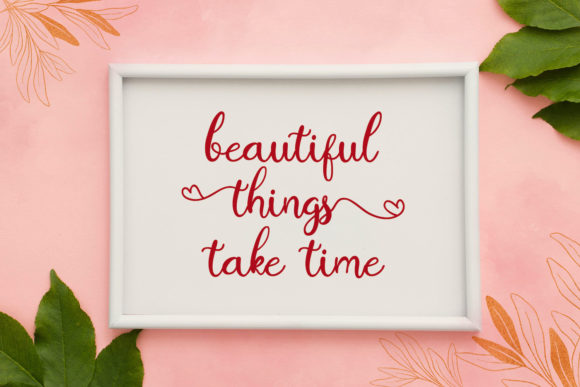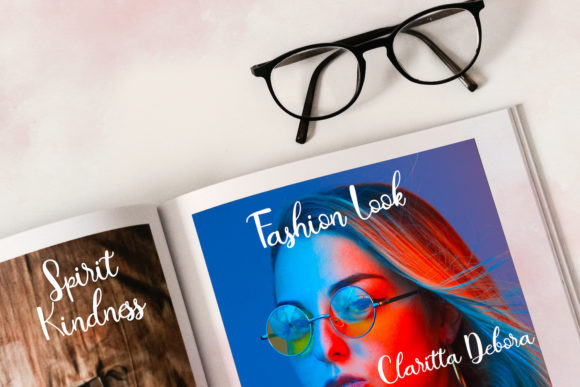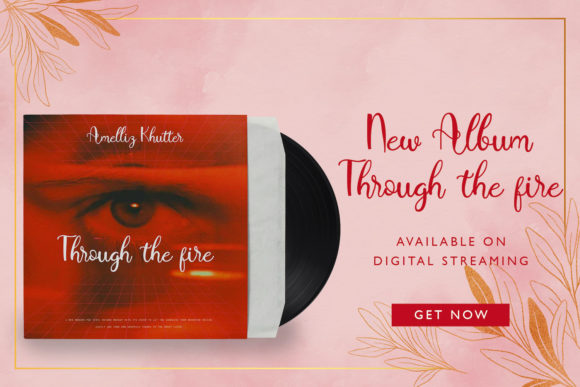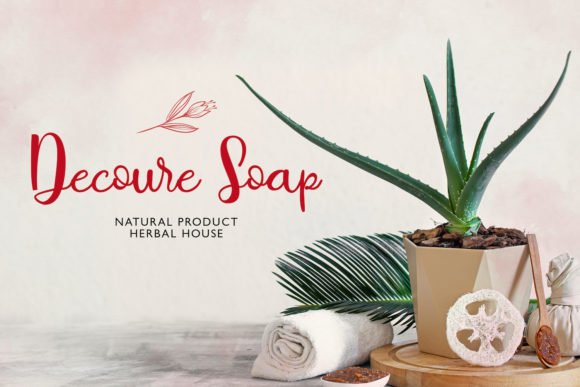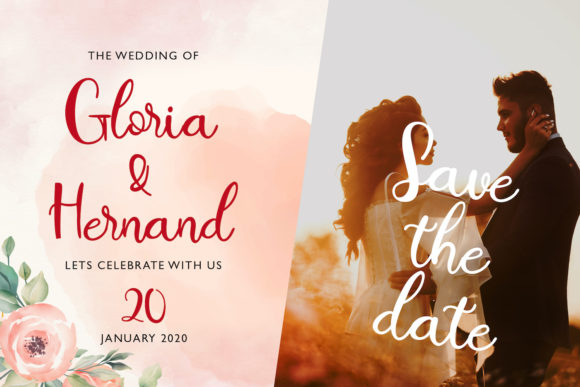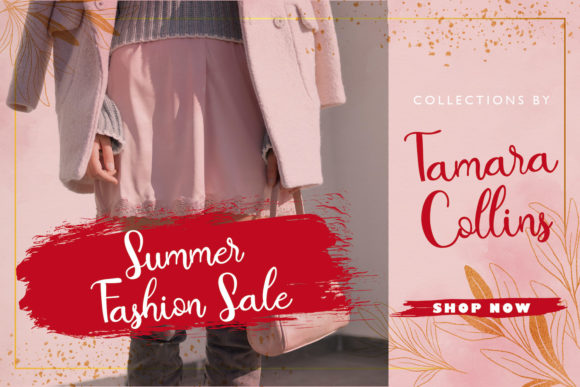
Introduction to Hey Sweety Font
As a designer, there’s nothing quite like the rush of creating a new project from scratch. You’re faced with a blank canvas, a blank slate, and a blank mind – and yet, the possibilities are endless. But let’s be real, sometimes the most daunting part of any creative project is finding the perfect font to set the tone. And that’s exactly where the Hey Sweety Font comes in – a charming, elegant, and oh-so-stylish font that’s perfect for adding a handwritten touch to your designs.
Whether you’re working on a wedding invitation, a thank you card, or even a logo for a new business, the Hey Sweety Font is a valuable resource that’s sure to elevate your design game. With its high-quality, transparent background, this font is perfect for designers who want to add a touch of sophistication to their work. And the best part? It’s completely free to download, making it an essential addition to any design library.
Key Features of Hey Sweety Font
- High-quality design resource ideal for creative projects, including digital artwork and print materials.
- Unique, hand-drawn style with transparent background, allowing for versatile use and easy layering.
- Perfect for use in digital media, such as social media graphics, logos, and web design, as well as print materials like business cards and brochures.
Honest Review: Hey Sweety Font
I recently stumbled upon the Hey Sweety Font, a free download that caught my attention with its playful, cursive design. As a designer, I appreciate high-quality design resources that can elevate a creative project. In this review, I’ll share my honest thoughts on this font.
- The Hey Sweety Font has a beautiful, flowing script that’s perfect for adding a touch of elegance to your designs.
- The font is available in several weights, making it versatile for various design projects.
- The transparent background option allows for seamless integration with any background image or color.
- The font may not be suitable for formal or professional designs, as it has a playful, casual vibe.
- The font lacks a clear, condensed version, which might limit its use in small spaces or on mobile devices.
Overall, the Hey Sweety Font is a great addition to any designer’s toolkit. While it may have some limitations, its unique design and versatility make it a valuable resource for creative projects. If you’re looking for a fun, cursive font to spice up your designs, I’d definitely recommend giving it a try.
Tips for Getting the Most Out of Hey Sweety Font
To get the most out of the Hey Sweety Font, use it in conjunction with a high-quality image or design element. Experiment with different font sizes and styles to create a visually appealing design. You can also use the font on a transparent background to create a modern and sleek look.
Common Use Cases for Hey Sweety Font
The Hey Sweety Font is ideal for use in creative projects such as social media graphics, blog posts, and marketing materials. Its high-quality design and transparent background make it perfect for use in digital design projects.